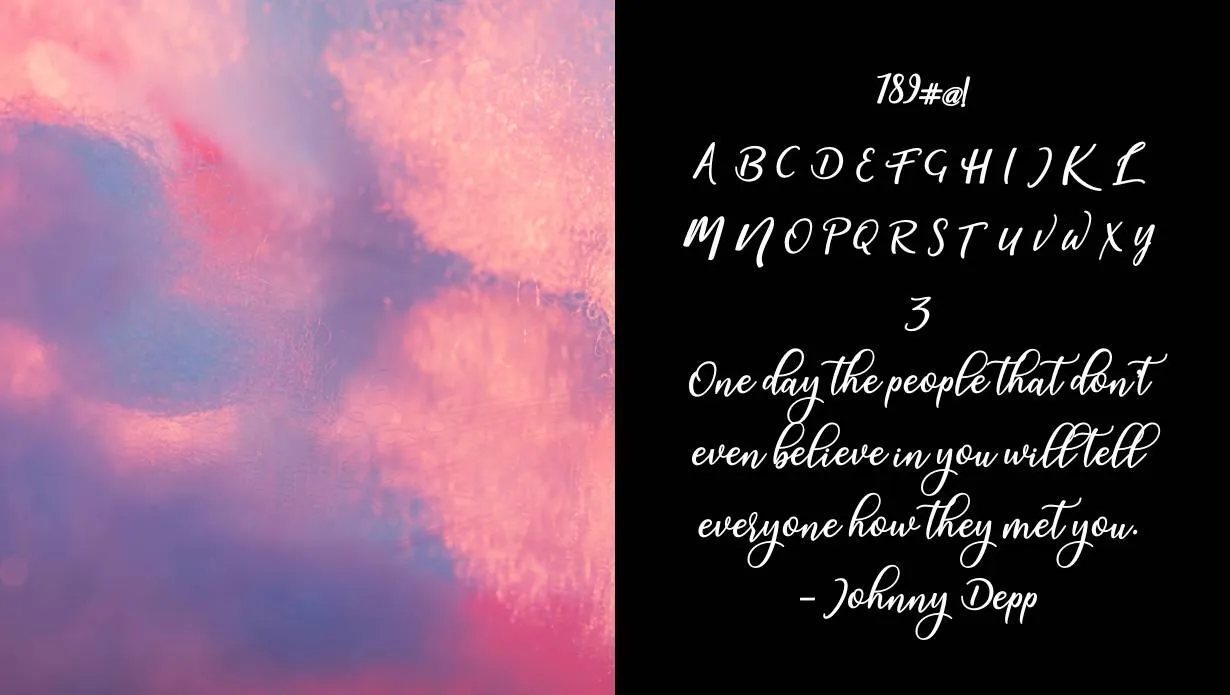
Magic Font is a calligraphy typeface designed by Mr Letters named studio. The design is based on the clean connected letter that was popular at that time. This Font is available in only regular weight and can be downloaded for free from this website.
This is a popular choice for headlines and body text and has been used by many major brands. The glyph of this font has thin apertures and semi-height characters, which makes it highly legible. It is a versatile choice for both web and print design.
| Name | Magic Font |
| Designer | Mr Letters |